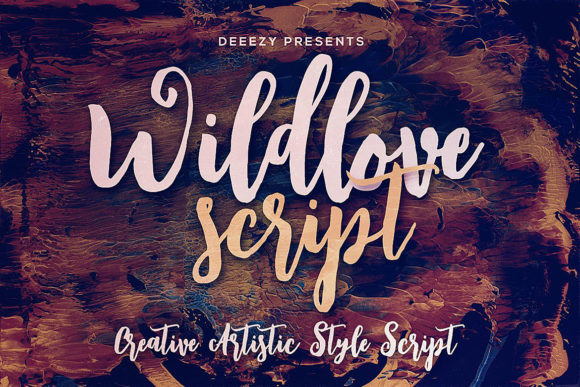
Step into the world of Wildlove Font, a whimsical and enchanting creation by JumboDesign that embodies the essence of untamed passion and boundless creativity. This script font, with its languid strokes and subtle variations, is an artist's dream, a perfect canvas for expressing love, joy, and the exquisite beauty of the natural world.
With Wildlove Font, your words take on a life of their own, dancing across the page like sunbeams through leaves. Its sweeping curves and playful terminals add a touch of magic to any design, evoking a sense of nostalgia and timeless elegance. From wedding invitations to heartfelt letters, Wildlove Font elevates your message, transforming it into a tangible expression of your emotions.
Whether you're a seasoned designer or a creative enthusiast, Wildlove Font will ignite your imagination and inspire you to create designs that captivate and enchant. Its versatility knows no bounds, adapting seamlessly to a wide range of projects. From whimsical logos and branding to eye-catching social media posts and websites, Wildlove Font adds a touch of personality and charm that is sure to leave a lasting impression.
So, embrace the allure of the Wildlove Font, let your creativity flourish, and embark on a journey of artistic expression like never before. Experience the joy of transforming ordinary words into extraordinary works of art, and let the world fall in love with your unique vision.